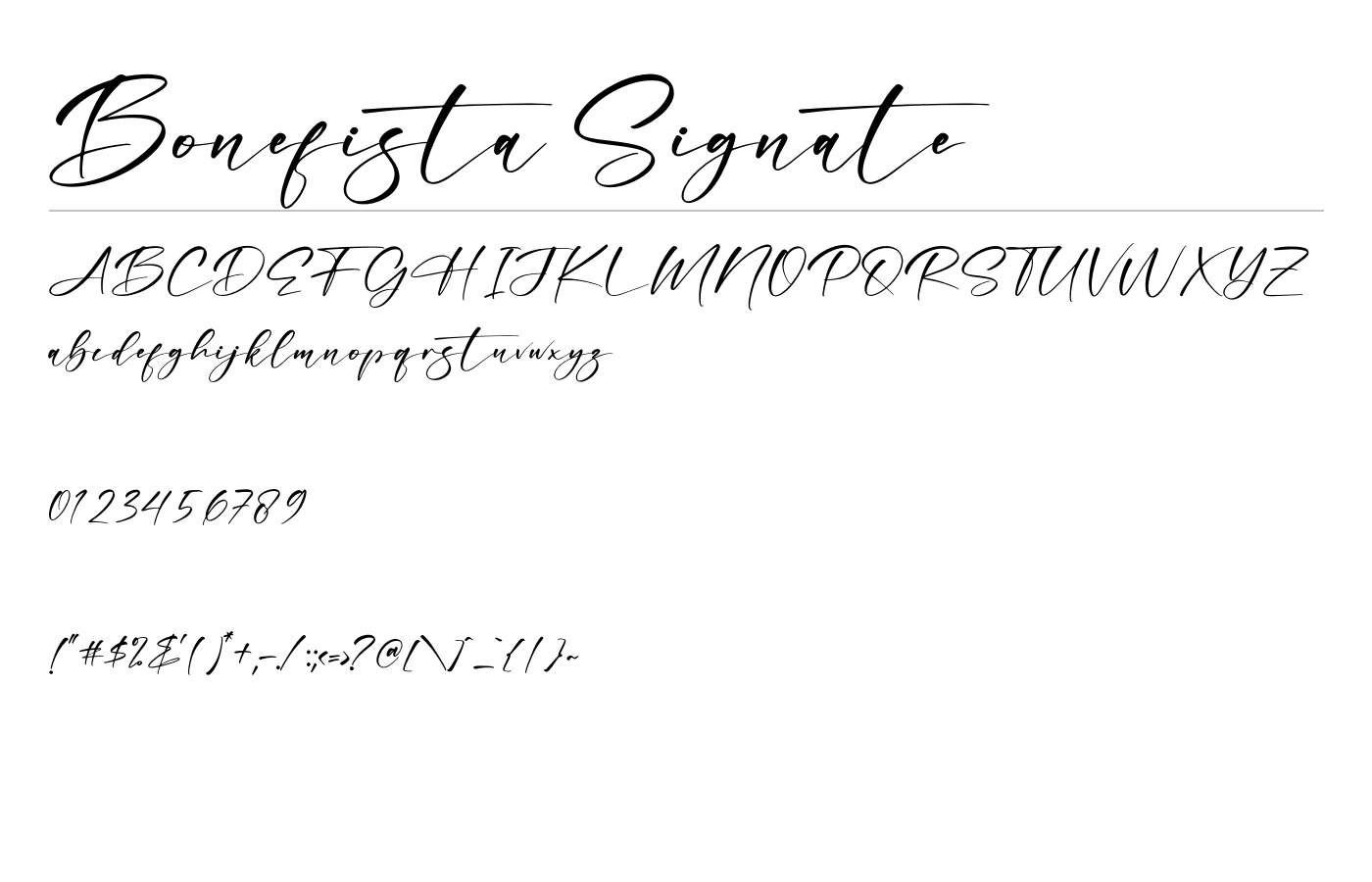
Bonefista Signate is a graceful script font with a modern, handwritten feel, featuring delicate, flowing strokes and moderate contrast that mimic natural penmanship. Its elegant, airy letterforms make it ideal for stylish branding, invitations, and sophisticated editorial use where a personal, artistic touch is desired. Perfect for creating refined, feminine designs, this font adds a chic and approachable vibe to any project.
Bonefista Signate Font
About Bonefista Signate Font